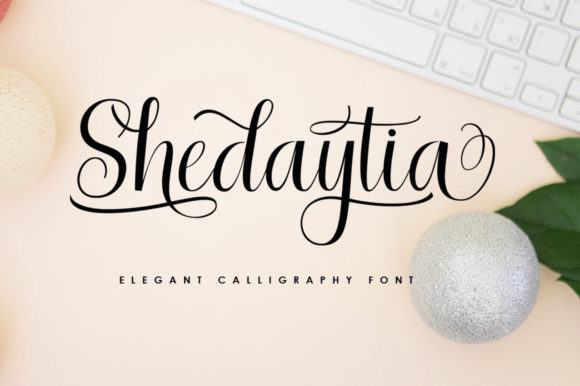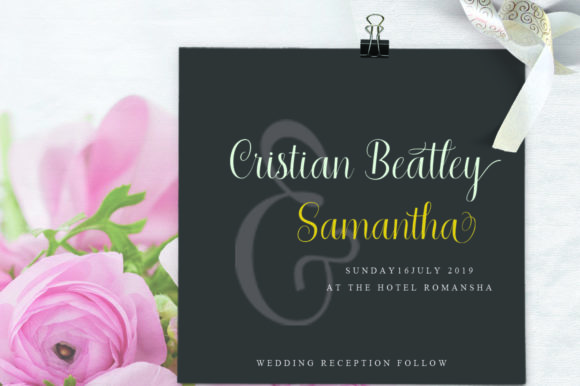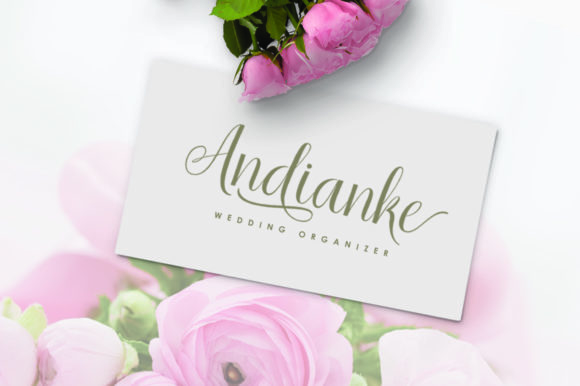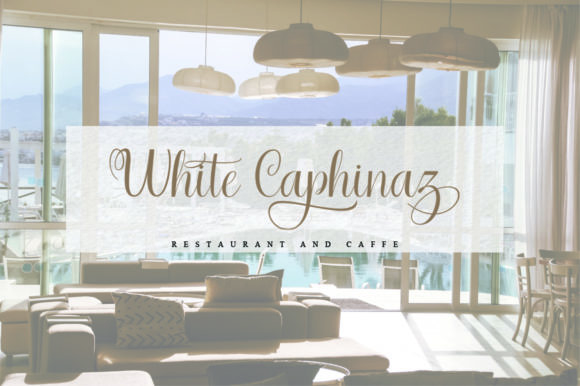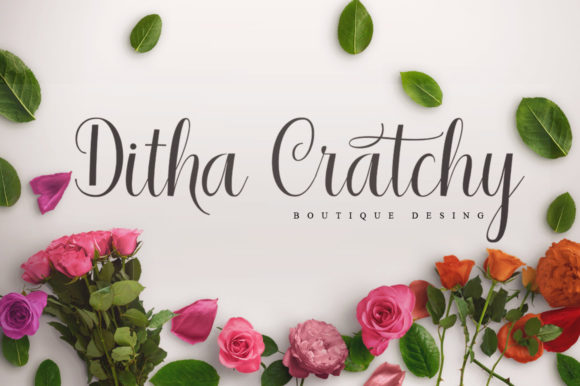
Shedaytia Font
About Shedaytia Font
The Shedaytia is a handwritten typeface with a classic root. It’s a beautiful script with an elegant touch.
It works perfect in the world of weddings, logos, greeting cards, branding, print ads, quotes, signage, magazines, and more!